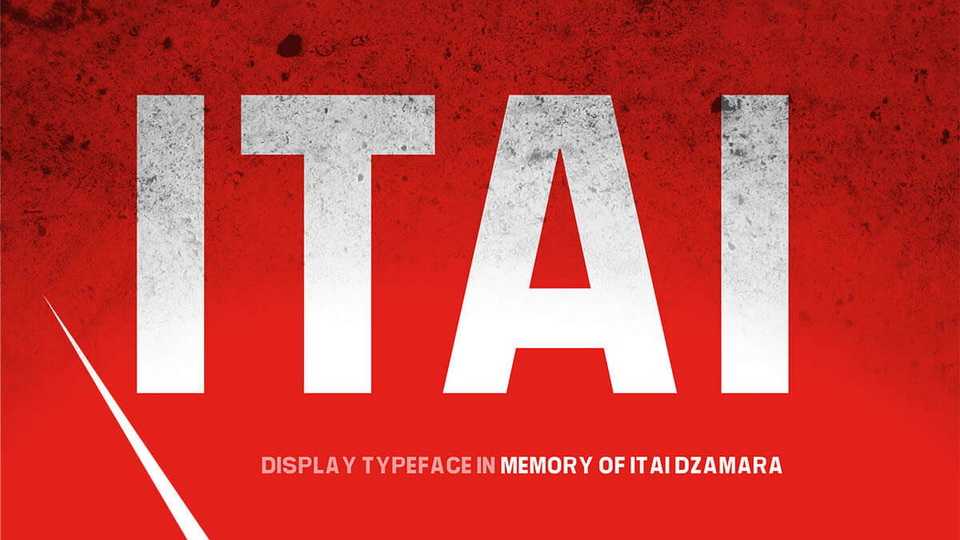
Download Itai font, a display typeface with three instances expressing the three stages of being for Itai Dzamara who protested, was abducted by Zimbabwean state agents and eventually disappeared.
Designer: Baynham Goredema